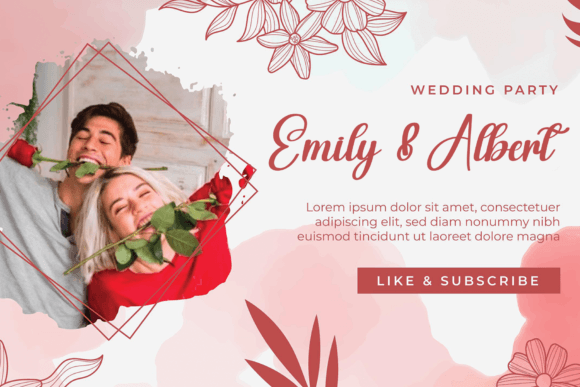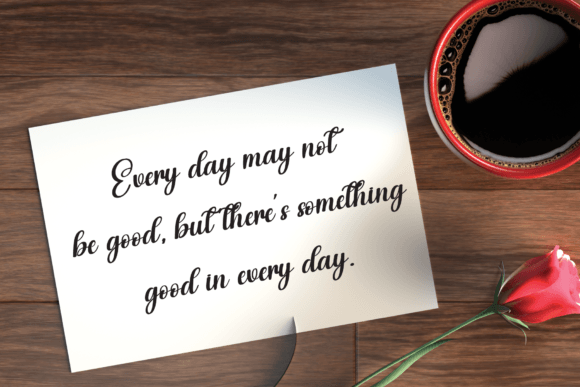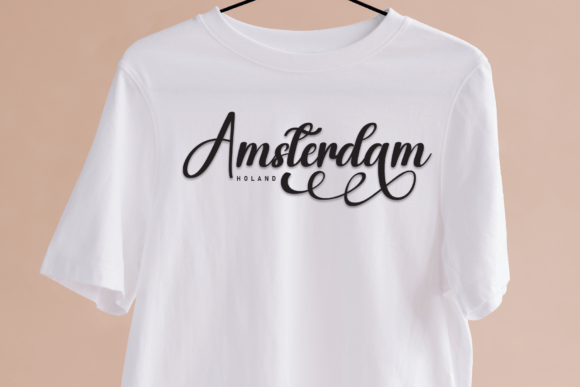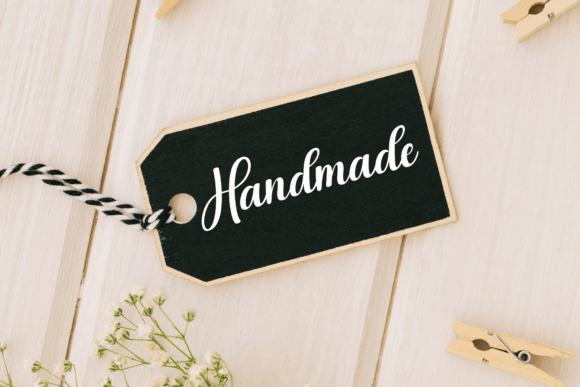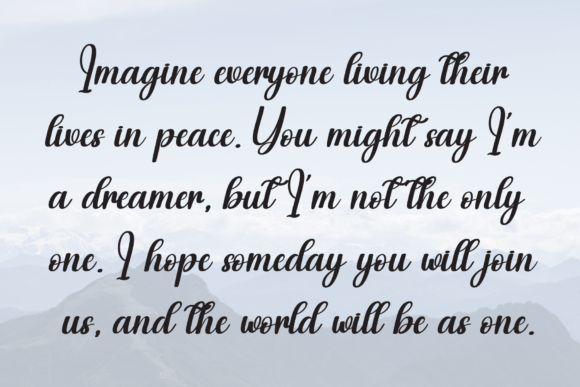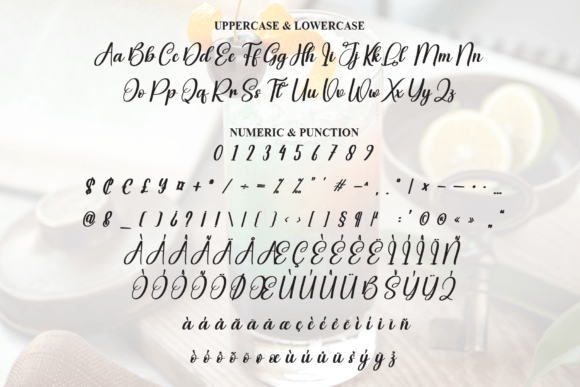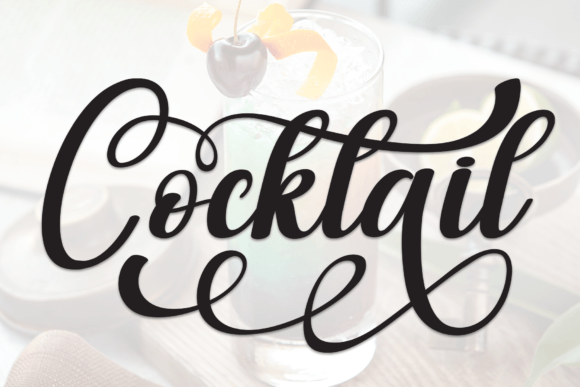
Cocktail Font: Elevate Your Designs with Elegance and Sophistication
In the world of typography, few fonts manage to convey the perfect blend of elegance and modernity. Cocktail Font is one such typeface that has captured the hearts of designers and crafters alike. This elegant script font is ideal for creating sophisticated invitations, announcements, and event materials that demand a personal touch. In this article, we’ll delve into the world of Cocktail Font, exploring its features, uses, and benefits, as well as provide tips on how to make the most of this stunning typeface.
What is Cocktail Font?
Cocktail Font is a beautiful script typeface characterized by its flowing lines, intricate connections, and refined aesthetic. Its elegant design makes it perfect for adding a touch of sophistication to various design projects. Whether you’re creating wedding invitations, event announcements, or social media graphics, Cocktail Font is sure to elevate your designs to the next level.
Key Features of Cocktail Font
- Elegant Script Design: Cocktail Font boasts a beautiful script design with flowing lines and intricate connections, making it perfect for creating elegant and sophisticated text.
- Modern Aesthetic: This font’s modern aesthetic ensures that your designs look contemporary and fresh, perfect for special occasions and events.
- Versatile: Cocktail Font can be used for a wide range of design projects, from invitations and announcements to social media graphics and more.
- Easy to Read: Despite its elegant design, Cocktail Font remains easy to read, making it perfect for body text and headlines.
Uses of Cocktail Font
Cocktail Font is an incredibly versatile typeface that can be used in various design projects. Here are some popular use cases:
- Wedding Invitations: Add a touch of elegance to your wedding invitations with Cocktail Font, making your special day even more memorable.
- Event Announcements: Create sophisticated event announcements that demand attention with Cocktail Font’s elegant design.
- Social Media Graphics: Elevate your social media graphics with Cocktail Font, making your content stand out in a crowded feed.
- Logos and Branding: Use Cocktail Font to create elegant logos and branding materials that reflect your brand’s sophisticated personality.
Benefits of Using Cocktail Font
So, why choose Cocktail Font for your design projects? Here are some benefits of using this elegant typeface:
- Instant Elegance: Cocktail Font adds an instant touch of elegance to your designs, making them perfect for special occasions and events.
- Versatility: This font’s versatility ensures that you can use it for a wide range of design projects, from invitations to social media graphics.
- Professional Look: Cocktail Font’s modern aesthetic and elegant design give your designs a professional look that’s sure to impress.
- Easy to Use: With its clean lines and simple design, Cocktail Font is easy to use, even for those new to design.
Tips for Using Cocktail Font
To make the most of Cocktail Font, here are some tips to keep in mind:
- Pair with Simple Backgrounds: Pair Cocktail Font with simple backgrounds to make your text stand out.
- Use for Headlines and Titles: Use Cocktail Font for headlines and titles to add a touch of elegance to your designs.
- Mix with Other Fonts: Mix Cocktail Font with other fonts to create a unique and visually appealing design.
In conclusion, Cocktail Font is an elegant script typeface that’s perfect for designers and crafters looking to add a touch of sophistication to their designs. With its modern aesthetic, versatility, and ease of use, Cocktail Font is sure to elevate your designs to the next level. Whether you’re creating wedding invitations, event announcements, or social media graphics, Cocktail Font is the perfect choice for adding a personal touch to special occasions.